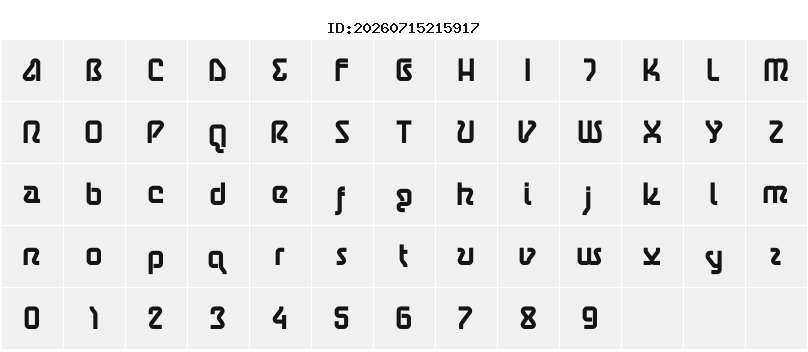
• Font Name: AstroBold
AstroBold.ttf is a modern, elegant sans-serif font designed for ultimate readability and visual harmony. Perfect for branding, headlines, web design, and print materials.